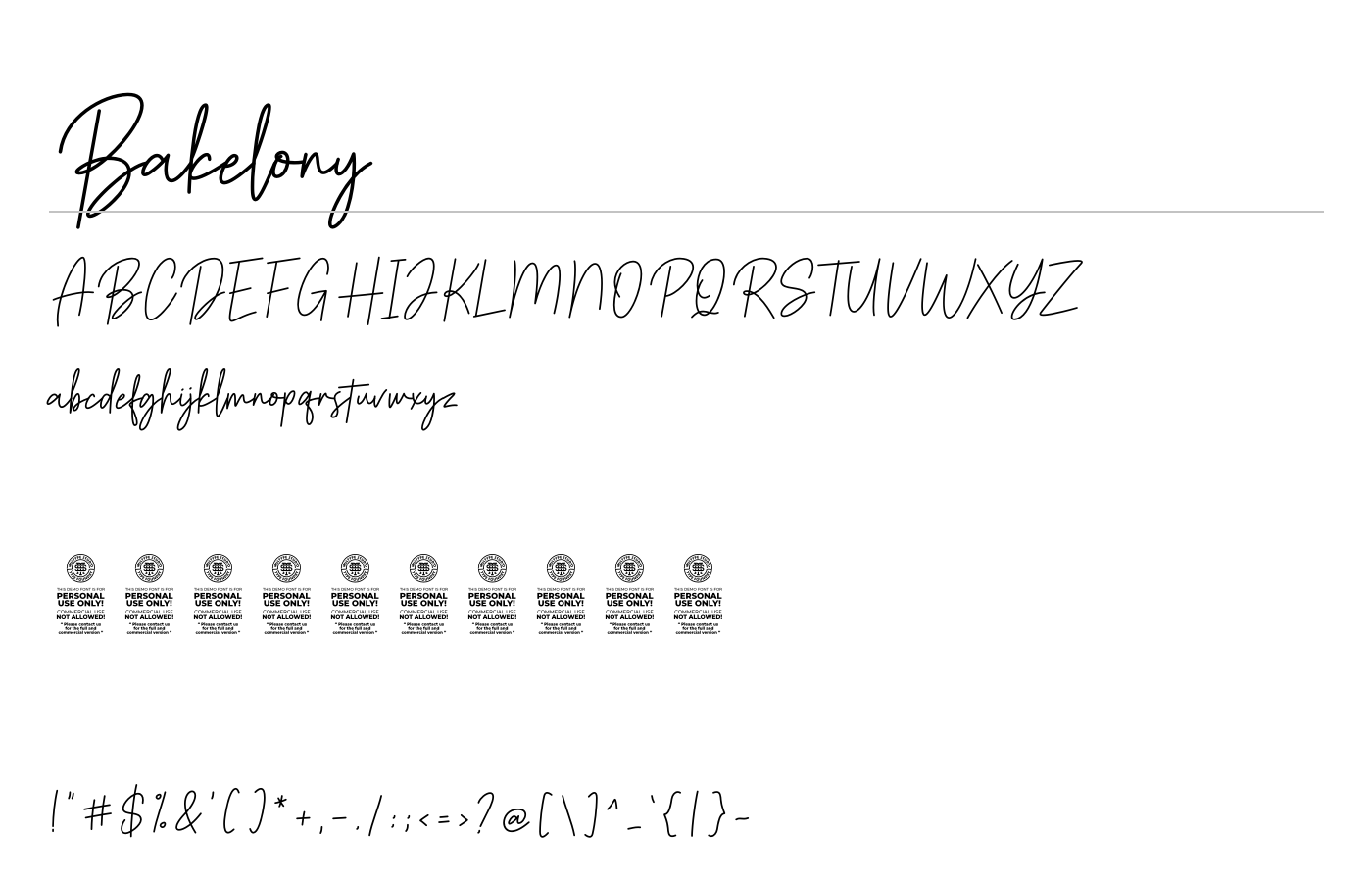
Bakelony is a delicate script font with a casual and elegant handwritten style, featuring thin, flowing lines and a slightly slanted, airy appearance. Its tall x-height and slender letterforms make it suitable for creative, personal, and feminine designs, lending a charming, approachable feel. This font works well for branding, invitations, social media graphics, and other projects where a touch of elegance and warmth is desired.
Bakelony Font
About Bakelony Font
| Font family | Bakelony Font |
| Designer | Mulia Yanto |
| Trademark | Multype Studio™ |